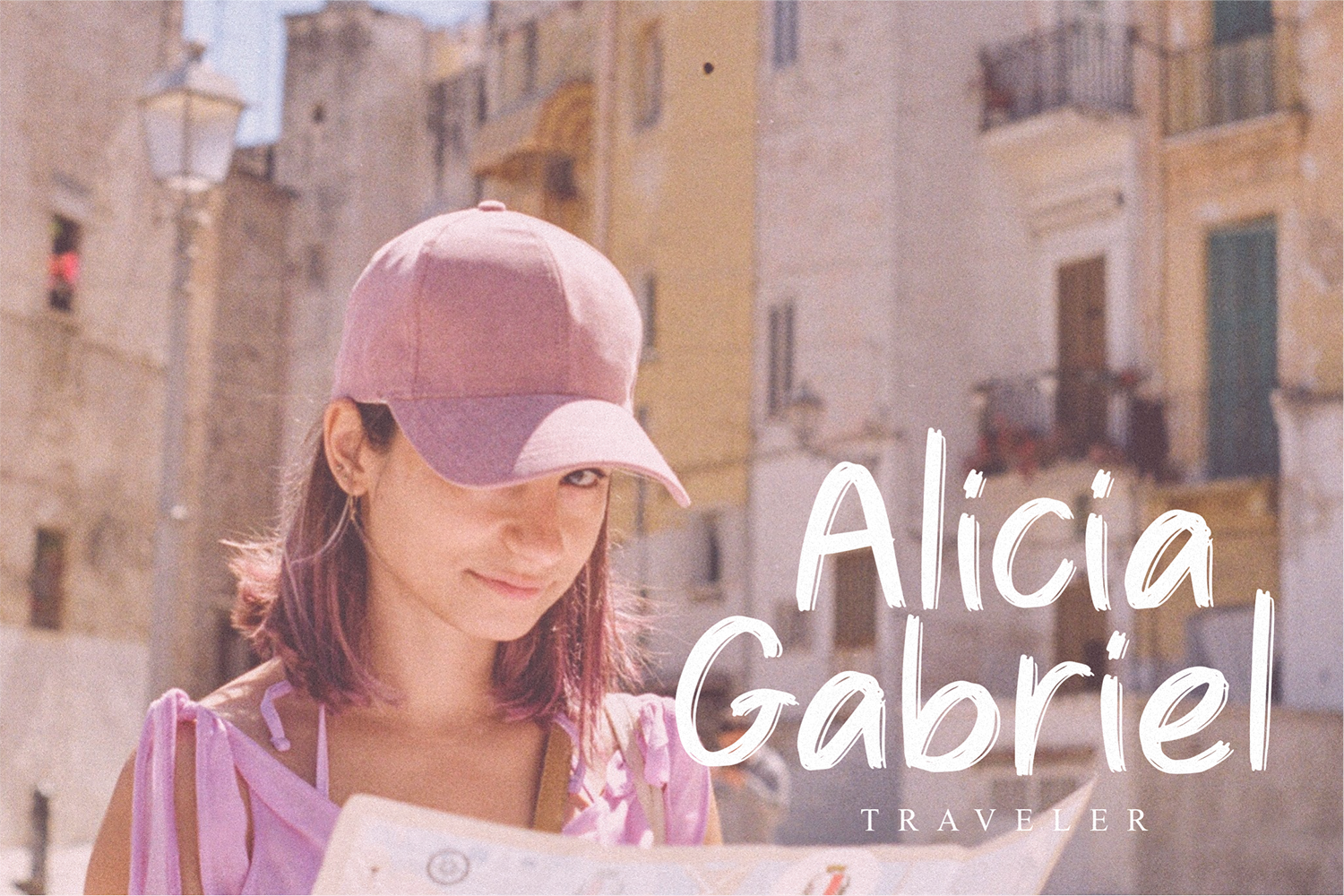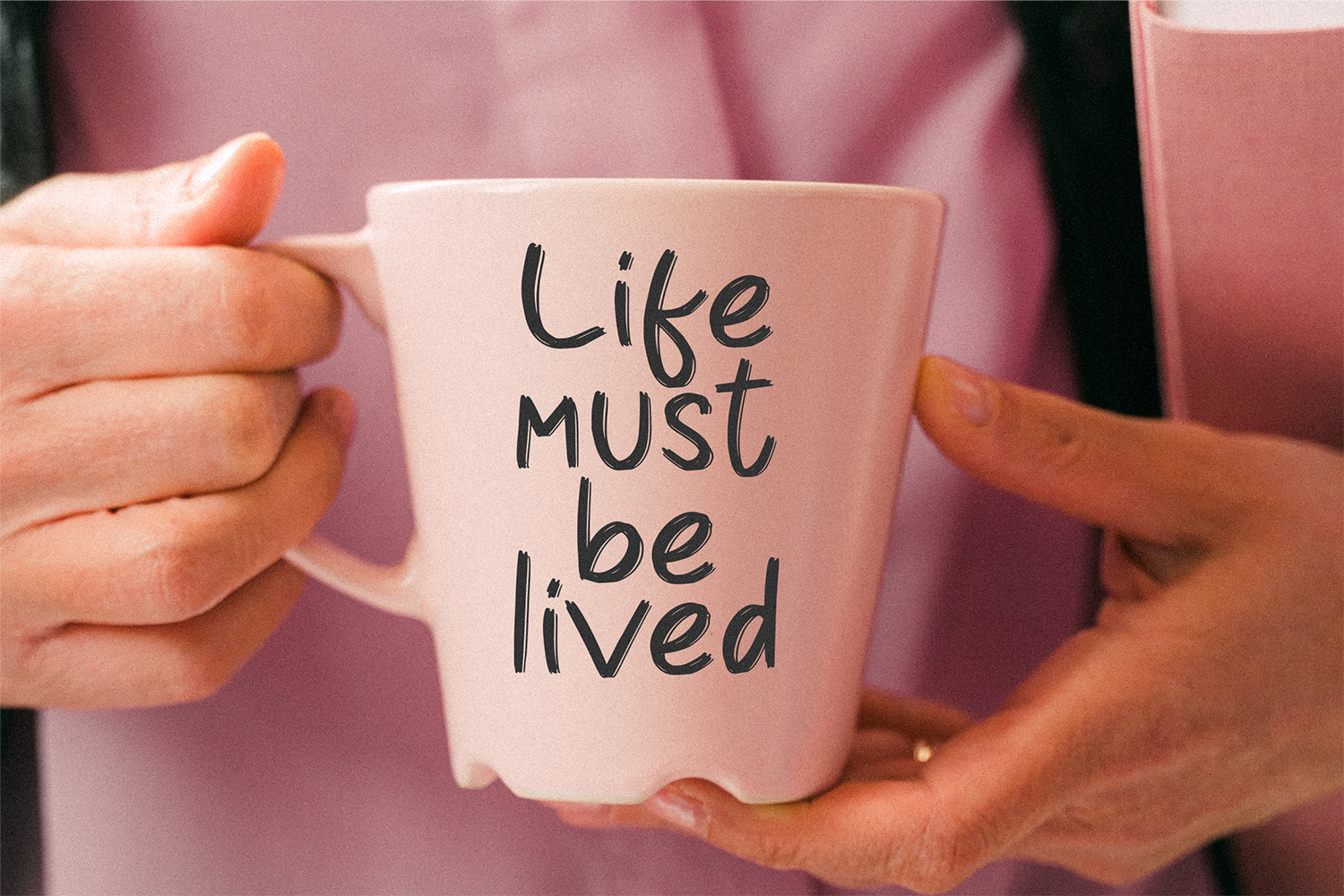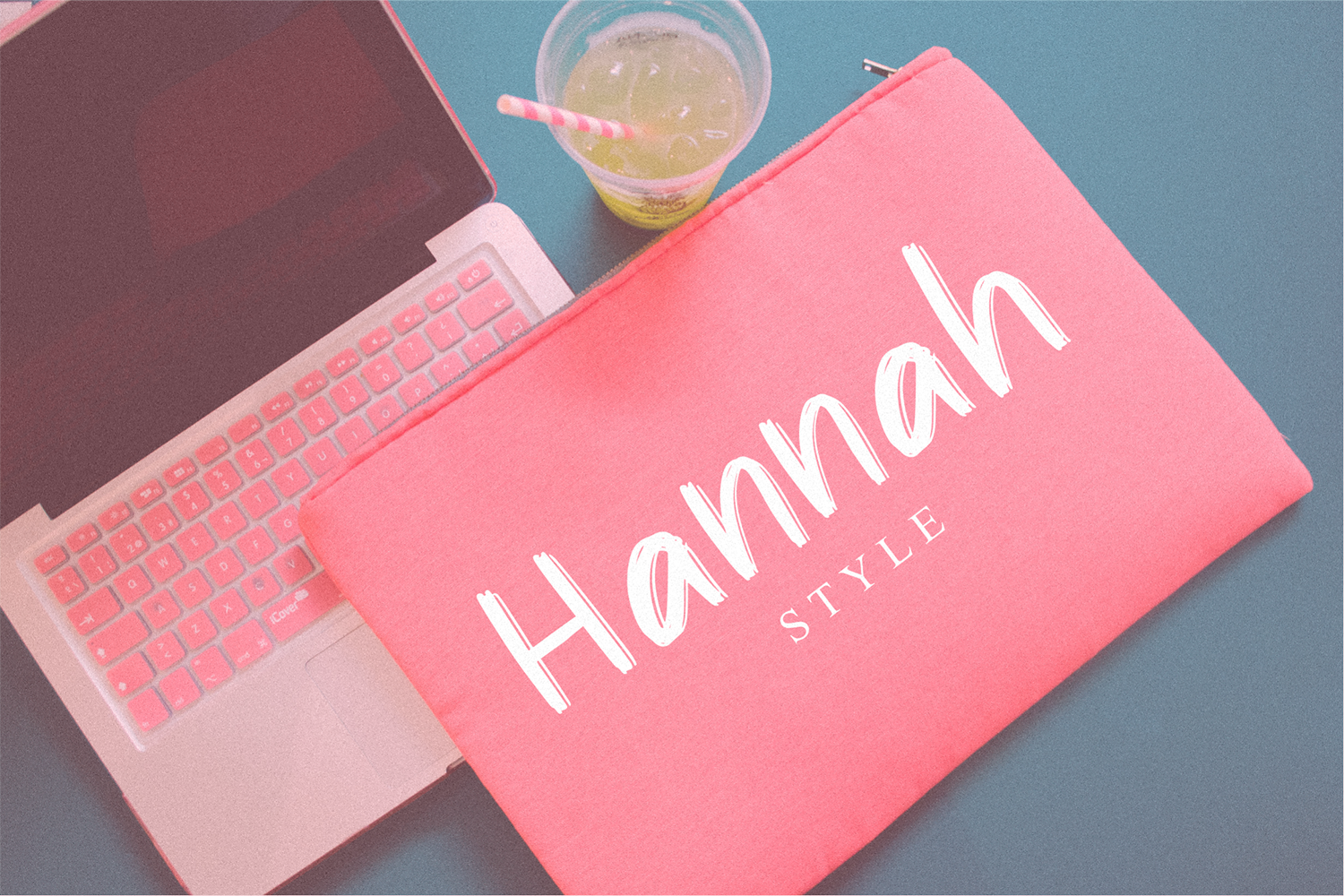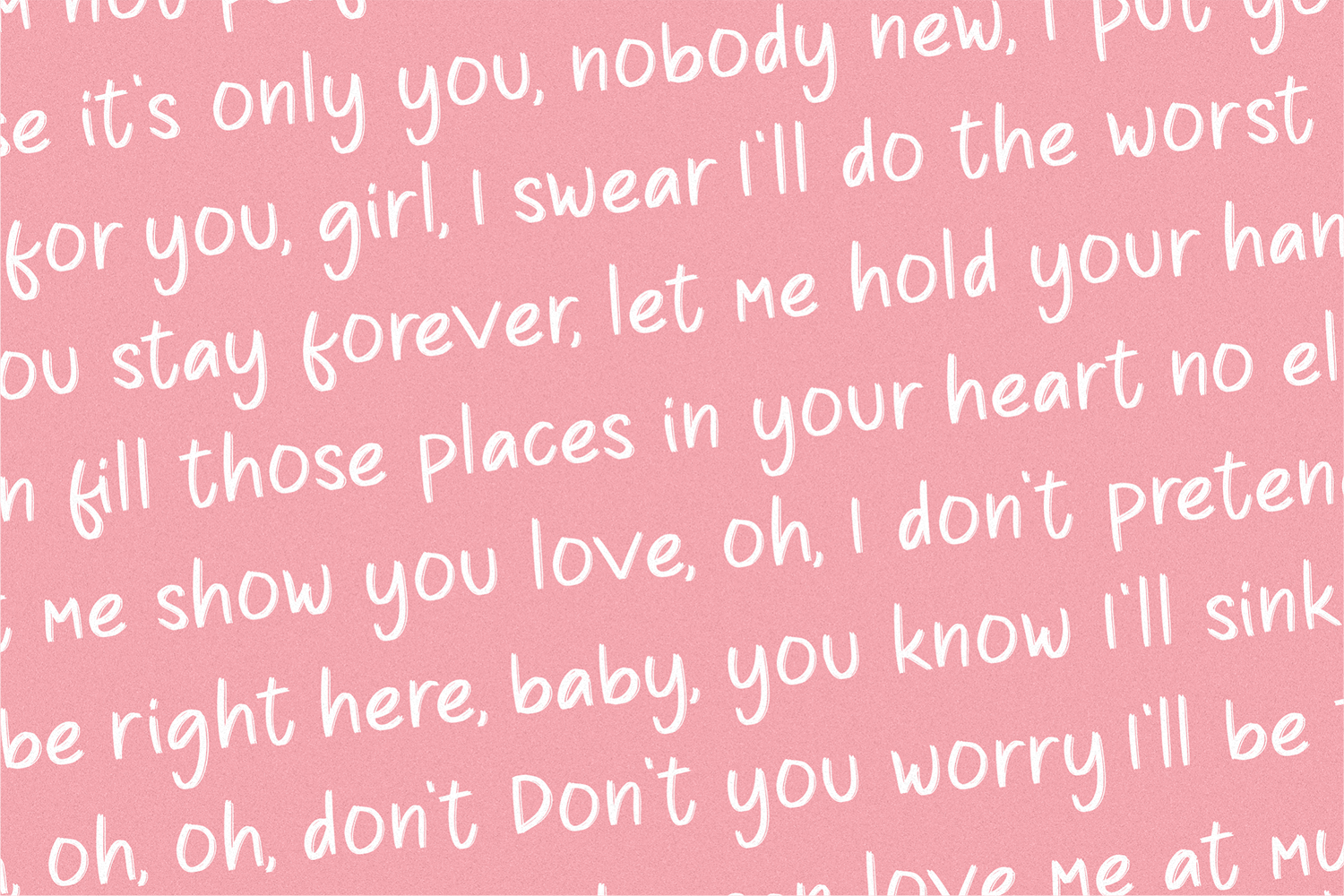
Pear Amigo Free Font
Pear Amigo Free Font is a delightful handwritten typeface font that adds a playful touch to your projects. Ideal for product packaging, branding, magazines, social media, weddings, or any creative expression you wish to showcase above your background. This free typeface was designed by a talented Qwrtype Foundry. If you like it don’t forget to check out the full version.